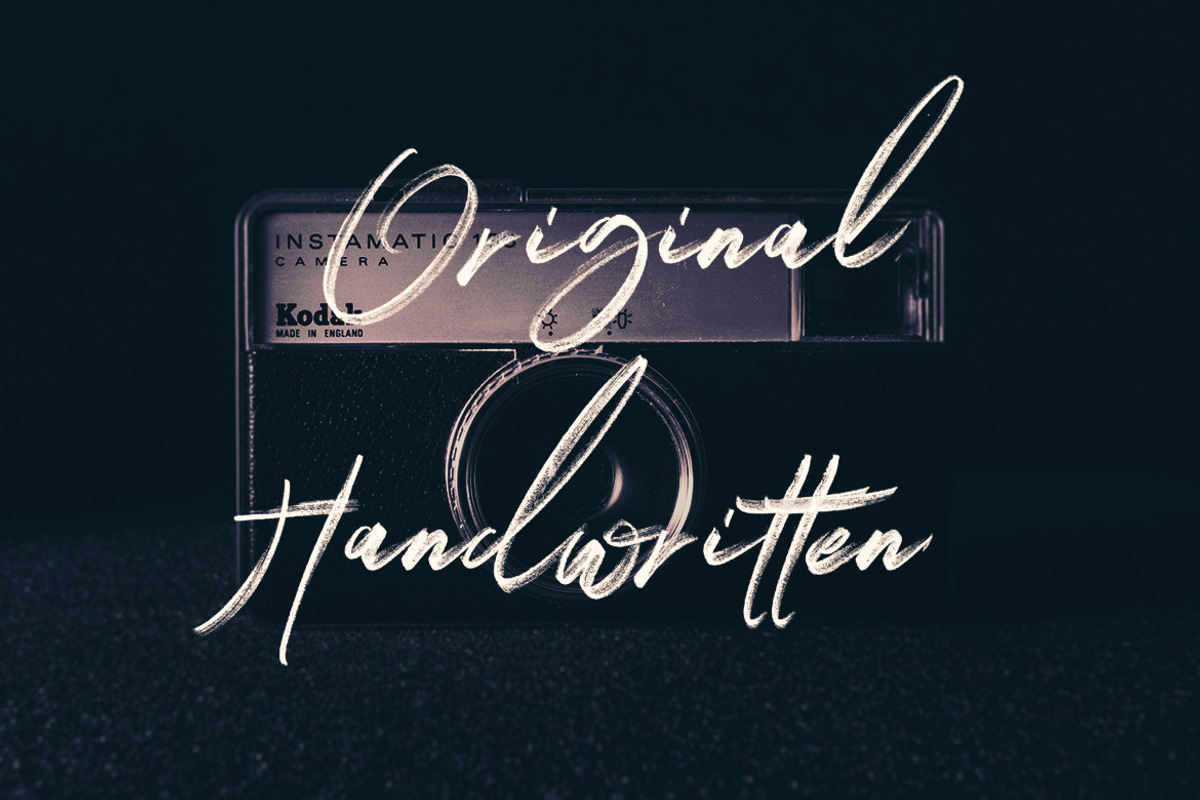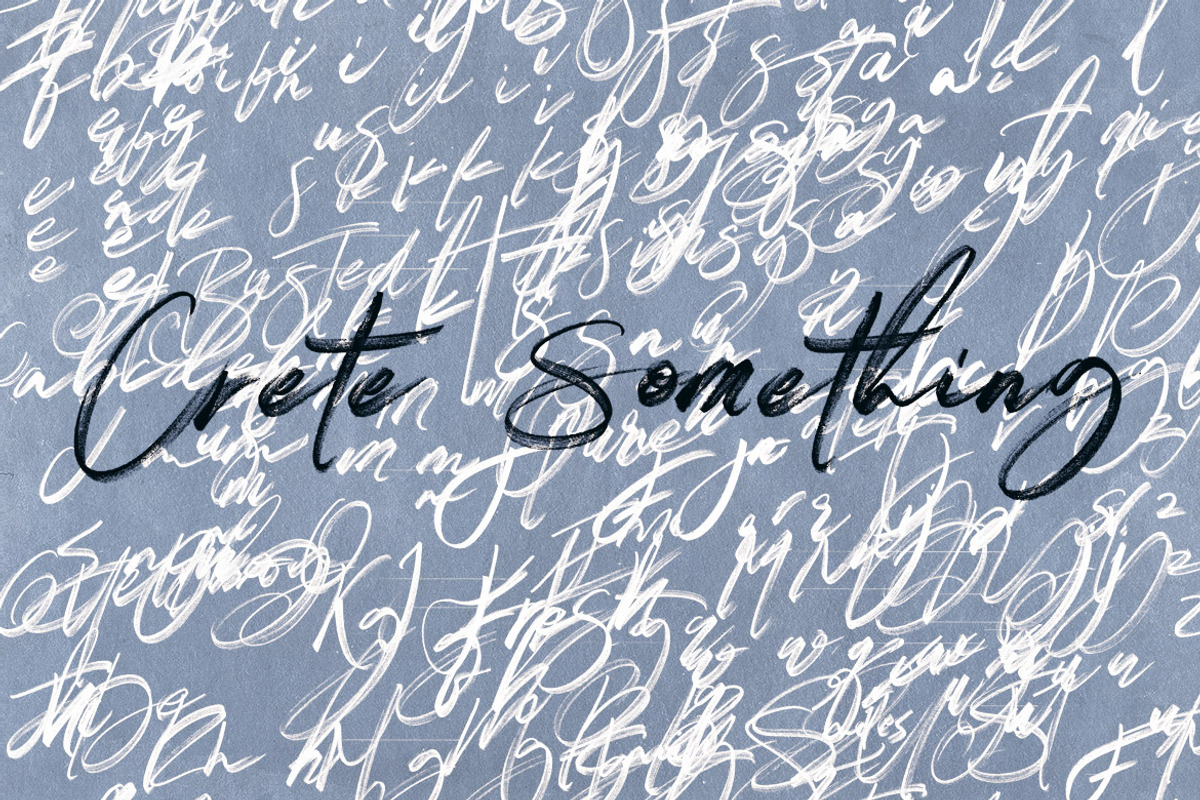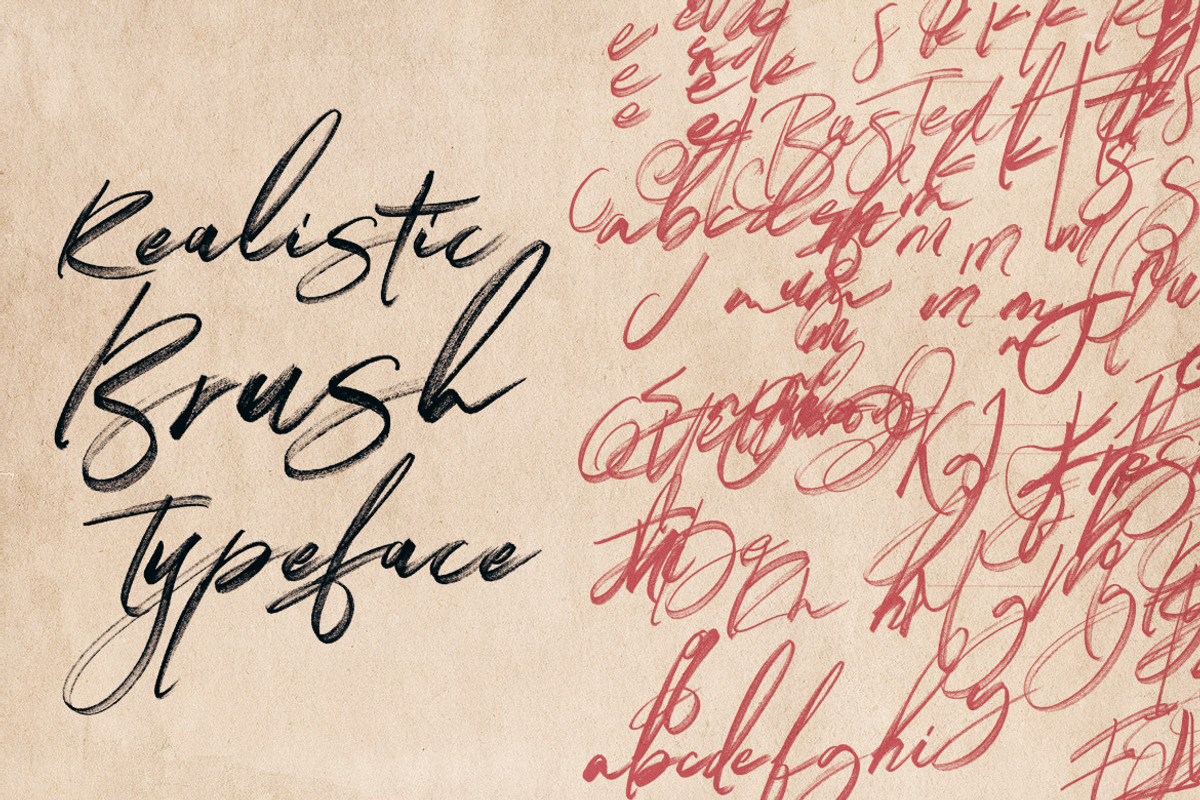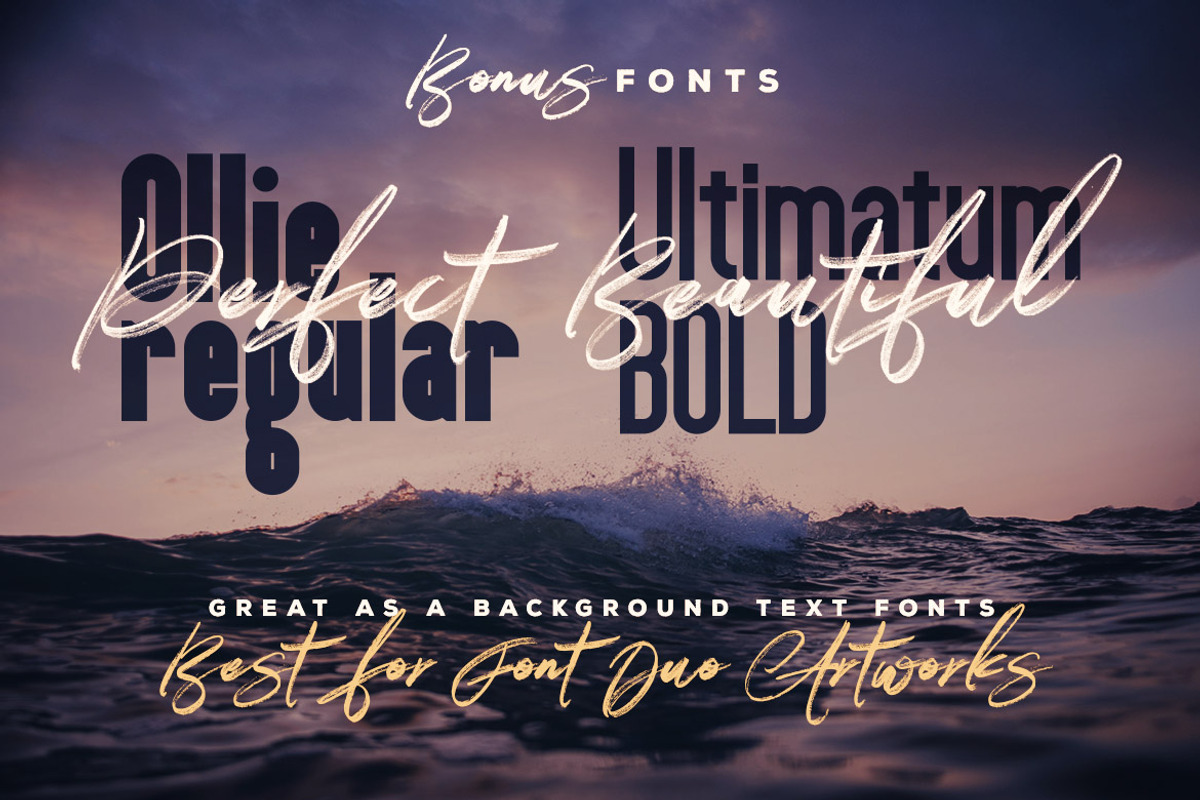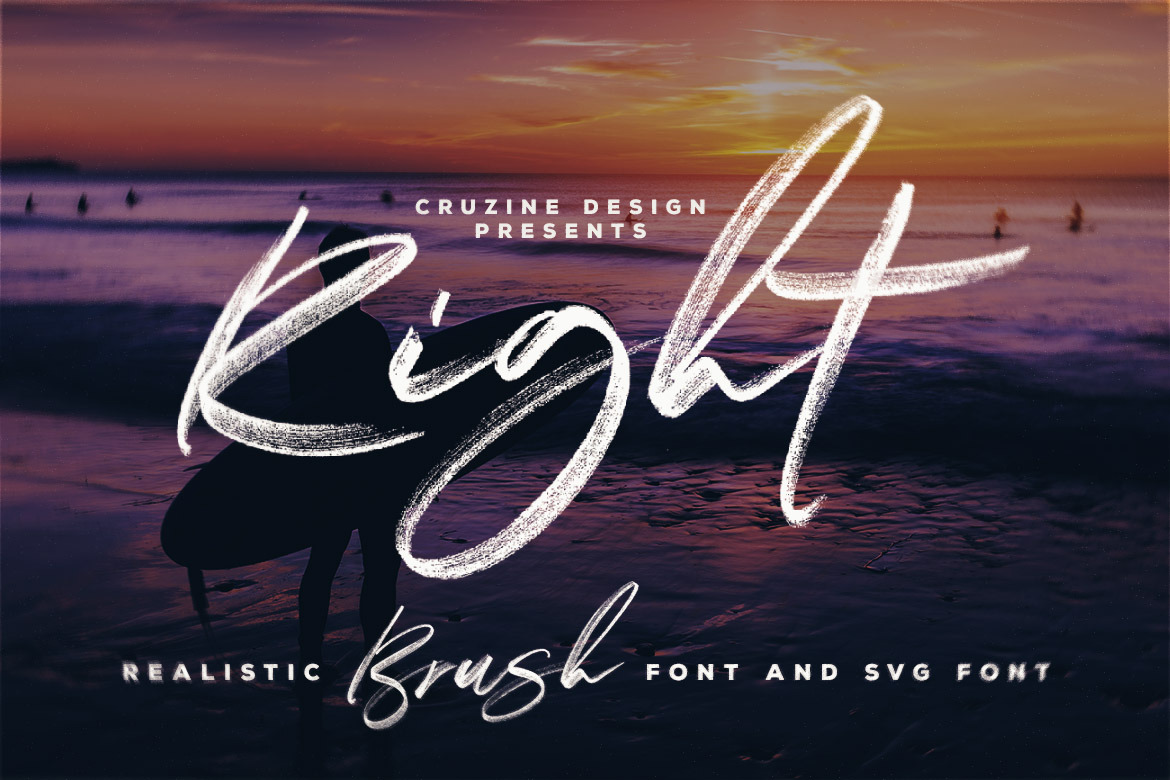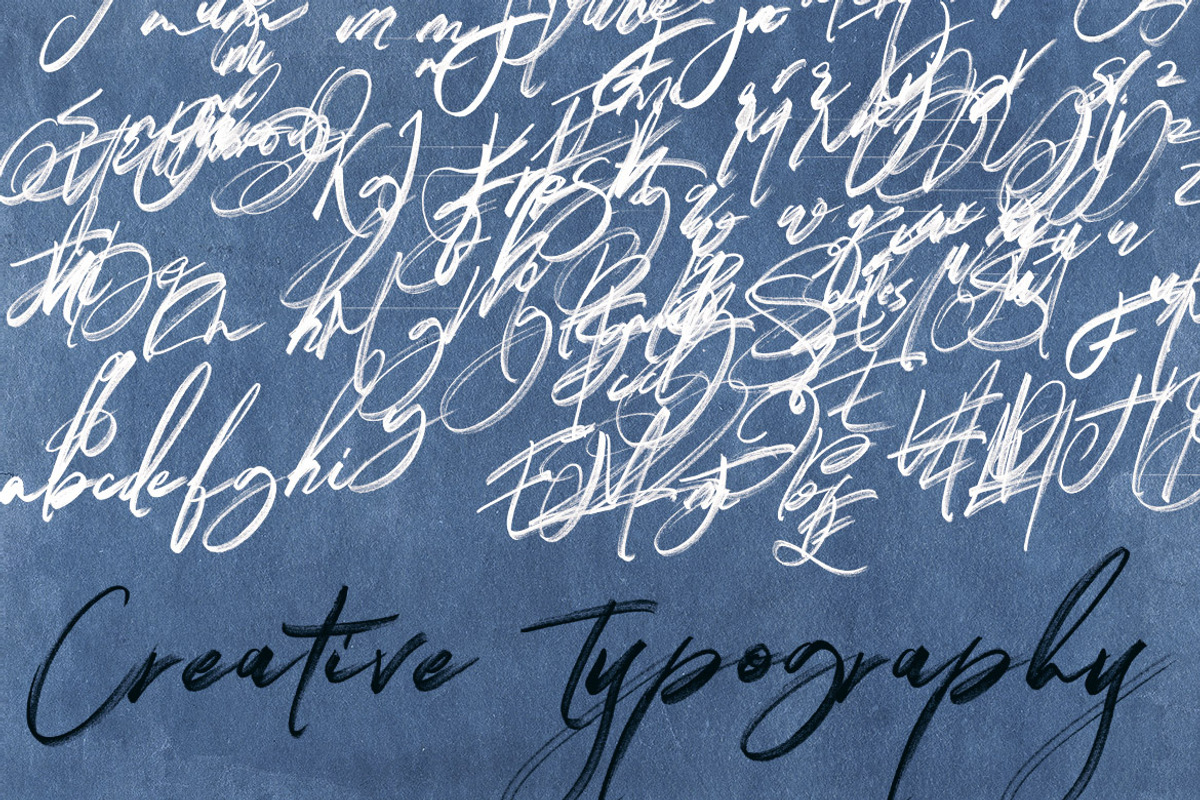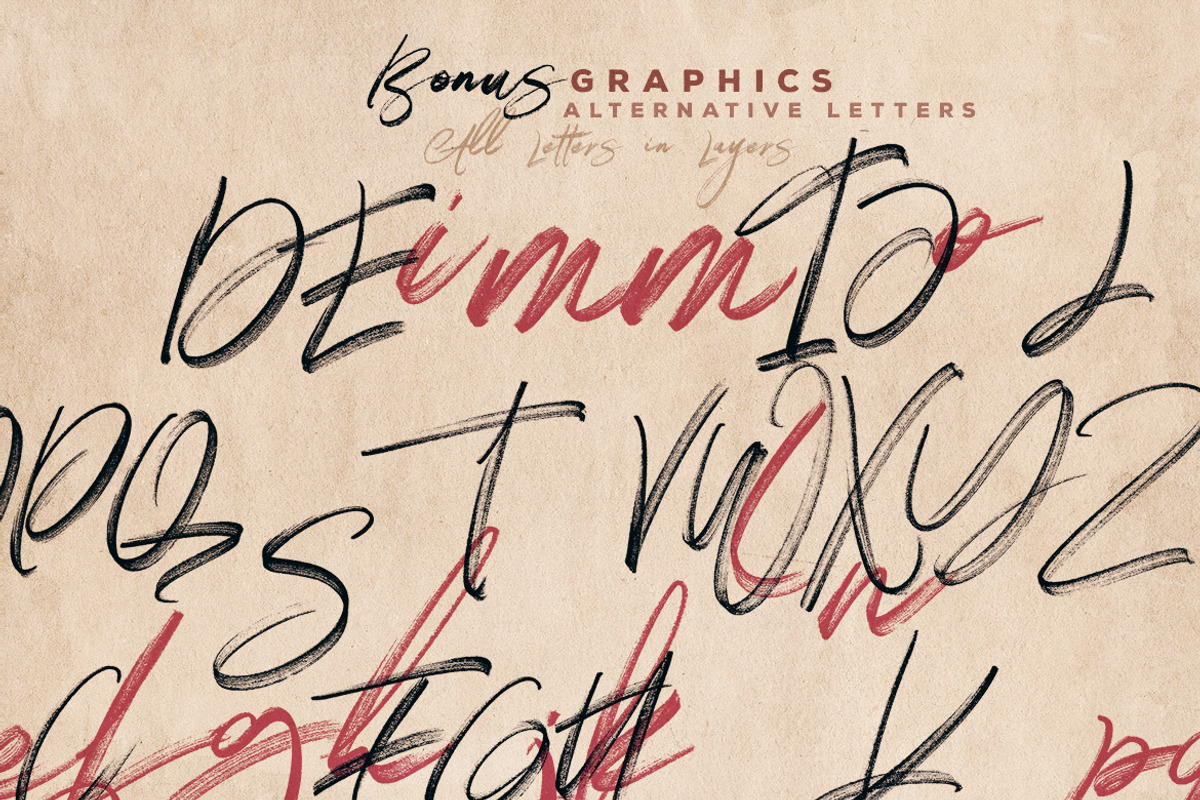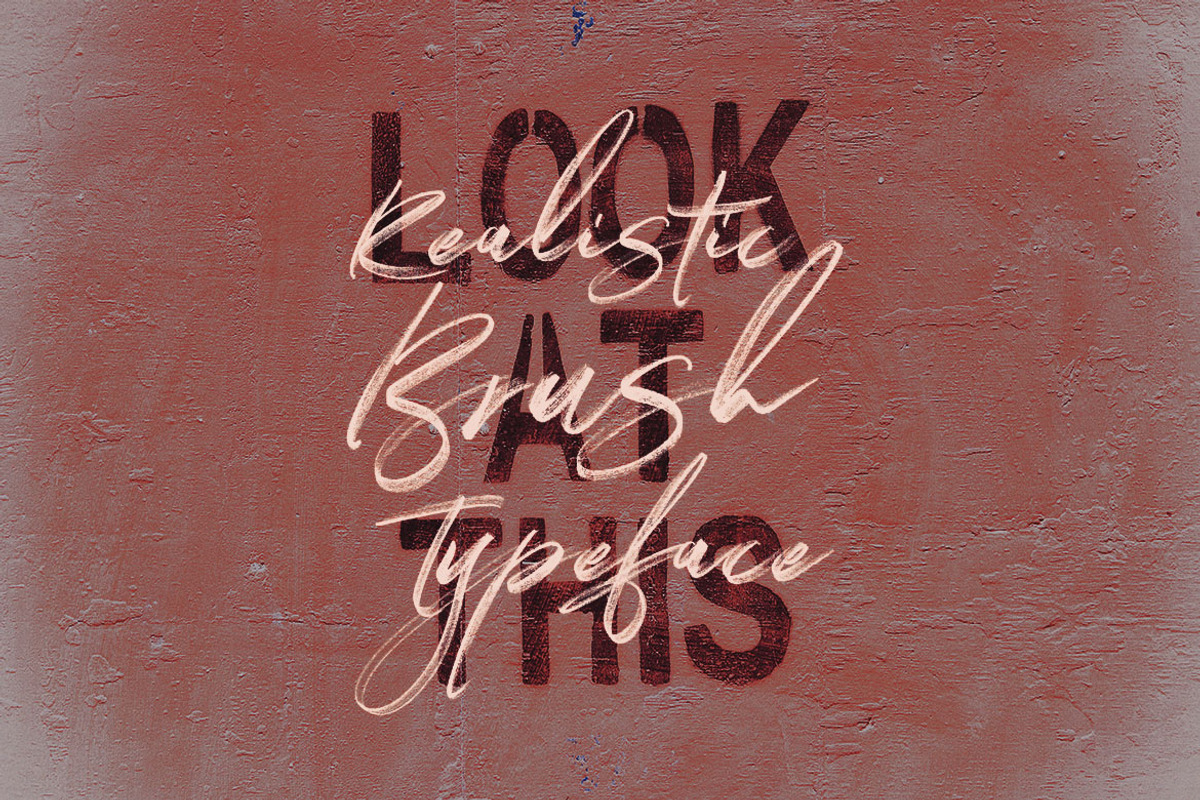
Right Brush & SVG Font
Brush or grunge style script display font for your new projects. Great for grunge or artistic projects!
- regular OTF fonts - main brush font + 2 clean sans serif fonts great as a font combination for background
- layered PSD template with all brush characters & lot of alternative letters -you can create your unique lettering because you'll find here lot of alternatives for A, B, C...a, b, c...